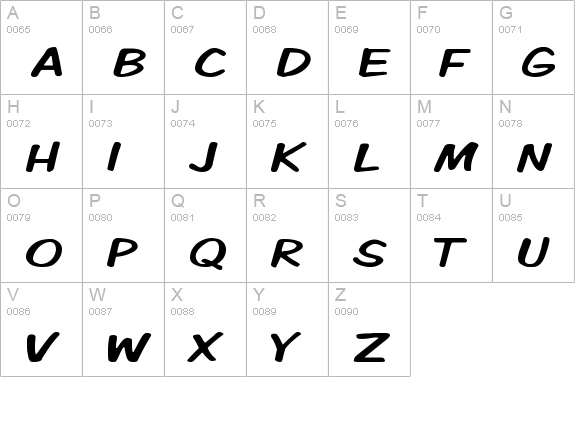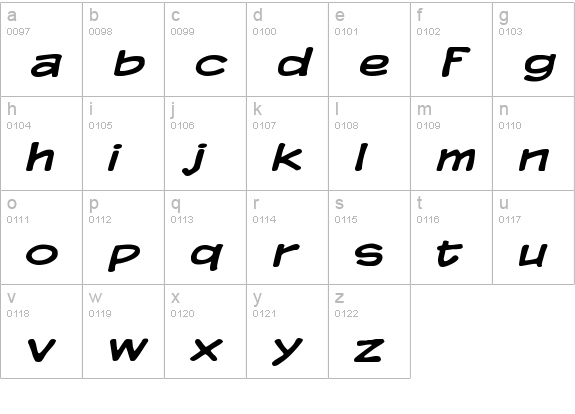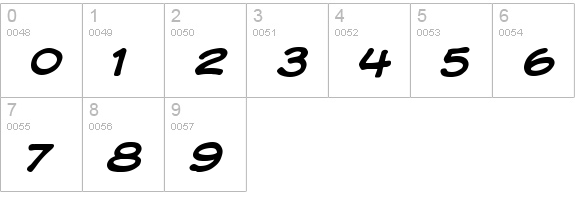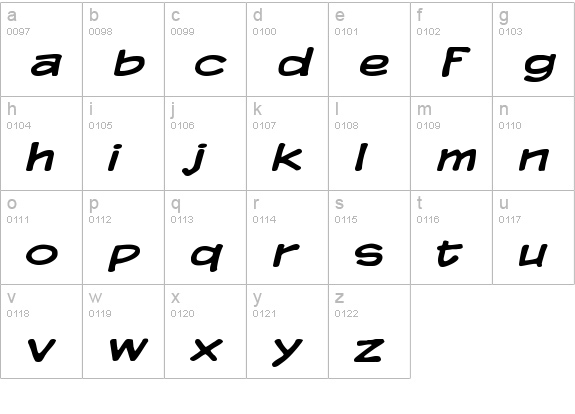
Komika Display Wide is a distinctive, extended-width variant in the Komika typeface family \xE2\x80\x94 well suited to design and typography projects.
Komika Display Wide is a modern and versatile font that exudes a unique and playful charm. Its bold and wide letterforms make it perfect for eye-catching headlines, branding projects, and poster designs. With a touch of quirkiness and a hint of sophistication, this font effortlessly captures attention and conveys a sense of creativity. What makes Komika Display Wide even more appealing is that it is available for free download at FontsMarket.com. Whether you're a designer looking to add a fresh twist to your projects or a hobbyist seeking to explore new typography options, this font is a fantastic choice. Embrace the boldness and character of Komika Display Wide and elevate your designs with its distinct style.